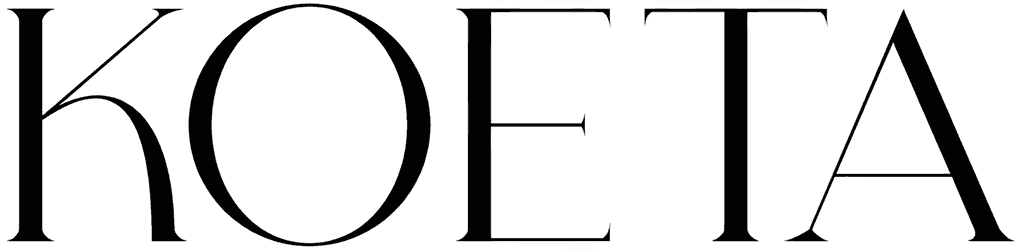
Koeta Font
Do you want to have a ravishing and elegant look for a modern design? Don’t miss this fashion font with its notable style that can be an ideal item for your work. Koeta has a memorable and chic style that can be used for…
Do you want to have a ravishing and elegant look for a modern design? Don’t miss this fashion font with its notable style that can be an ideal item for your work. Koeta has a memorable and chic style that can be used for formal or informal projects. With almost A-Z characters, Koeta can act well to prettify your designs from logotypes to magazines.